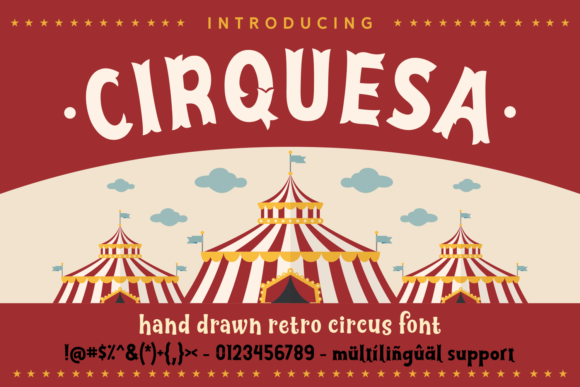
Cirquesa: The Perfect Font for Creative and Professional Projects
If you're looking for a font that brings a sense of whimsy and energy to your designs, Cirquesa might be just what you need. This beautiful display font is ideal for circus-themed projects, but its versatility extends far beyond that. Whether you're creating a party invitation, designing a logo, or working on a marketing campaign, Cirquesa offers a unique blend of style and readability that can elevate your work.
What Makes Cirquesa Stand Out
Cirquesa isn't just another fontâit's a design choice that adds character and flair. Its rounded edges and playful curves give it a friendly, approachable feel, making it perfect for projects that aim to engage and delight. Unlike some more rigid typefaces, Cirquesa feels dynamic, as if itâs moving and breathing with the text it forms.
One of the key strengths of Cirquesa is its balance between aesthetics and functionality. While itâs clearly a display font meant to catch attention, it doesnât sacrifice legibility. This means you can use it in a variety of contexts without worrying about whether your audience will be able to read it easily.
Real-World Use Cases for Cirquesa
Letâs look at some practical situations where Cirquesa could make a real difference. For example, if youâre planning a birthday party or a themed event, this font can add a fun, eye-catching element to your invitations or banners. Imagine using it for a carnival-themed celebrationâCirquesa would instantly set the tone and make your materials stand out from the crowd.
For entrepreneurs or small business owners, Cirquesa can be a great tool for branding. If you run a boutique, a cafĂ©, or a creative studio, using this font in your logos or signage can help create a memorable identity. Itâs especially effective when paired with bold colors or playful illustrations, giving your brand a distinctive personality.
Marketers and content creators can also benefit from Cirquesa. Whether youâre designing social media graphics, email newsletters, or promotional posters, this font can help your message resonate more effectively. It works well for headlines, callouts, or any text that needs to grab attention without overwhelming the reader.
Who Can Benefit from Using Cirquesa?
Creators, educators, and hobbyists often find themselves searching for fonts that can bring their ideas to life. For a teacher designing classroom materials, Cirquesa could make lesson plans or handouts more engaging. For a blogger or content creator, it can add a personal touch to headers or captions, making their work feel more dynamic and expressive.
Freelancers and designers who work on multiple projects may appreciate how Cirquesa can adapt to different styles. Whether they're working on a children's book, a product label, or a website header, this font offers flexibility without compromising on visual appeal. Itâs a go-to option when you want to add a bit of flair without overcomplicating your design.
Considerations Before Using Cirquesa
Before jumping into using Cirquesa, itâs worth considering a few factors. First, think about the context in which youâll be using it. While itâs excellent for display purposes, it may not be the best choice for large blocks of body text. That said, when used strategically, it can still enhance readability and visual interest.
Also, consider the platform or medium youâre working with. Some digital tools or print formats may have limitations on font rendering. Testing Cirquesa in your specific project environment can help ensure it looks as intended. If you're unsure, start with smaller elements like headings or titles before applying it more broadly.
Finally, remember that fonts are part of a larger design ecosystem. Pairing Cirquesa with complementary typefaces or color schemes can help maintain balance and harmony in your work. Donât be afraid to experiment and see how it fits into your overall vision.
For those new to typography, taking time to understand how different fonts affect the overall look and feel of a project can be incredibly valuable. Cirquesa is a great starting point because itâs both visually appealing and easy to work with. As you become more familiar with it, youâll likely discover new ways to incorporate it into your creative process.
Why Choose Cirquesa Over Other Fonts?
In a world filled with countless font options, Cirquesa stands out for its unique combination of charm and clarity. While other fonts may prioritize either style or readability, Cirquesa manages to strike a balance that makes it versatile across different applications. Itâs not just about looking goodâitâs about serving a purpose in your design.
Additionally, the emotional impact of a font shouldnât be overlooked. Cirquesa has a certain warmth and playfulness that can influence how people perceive your work. Whether youâre trying to convey excitement, nostalgia, or creativity, this font can help reinforce that message through its visual presence.